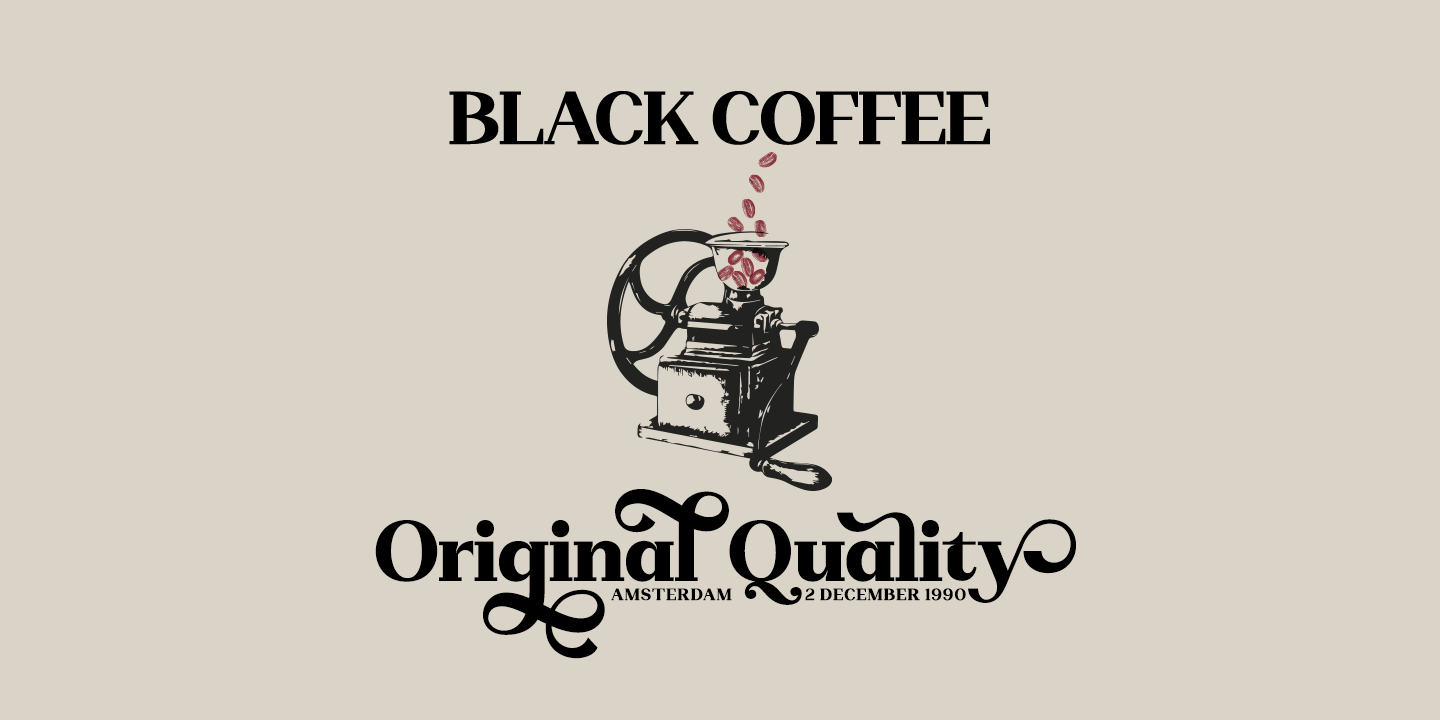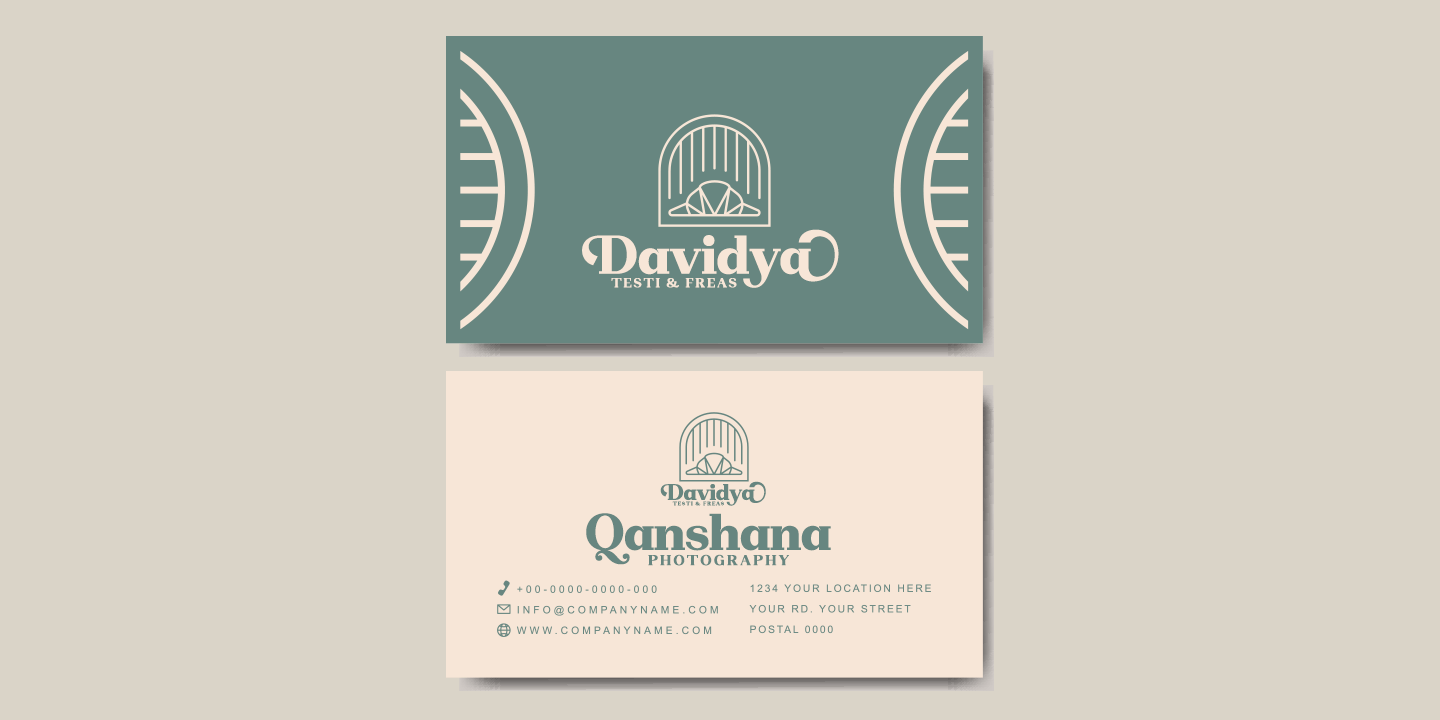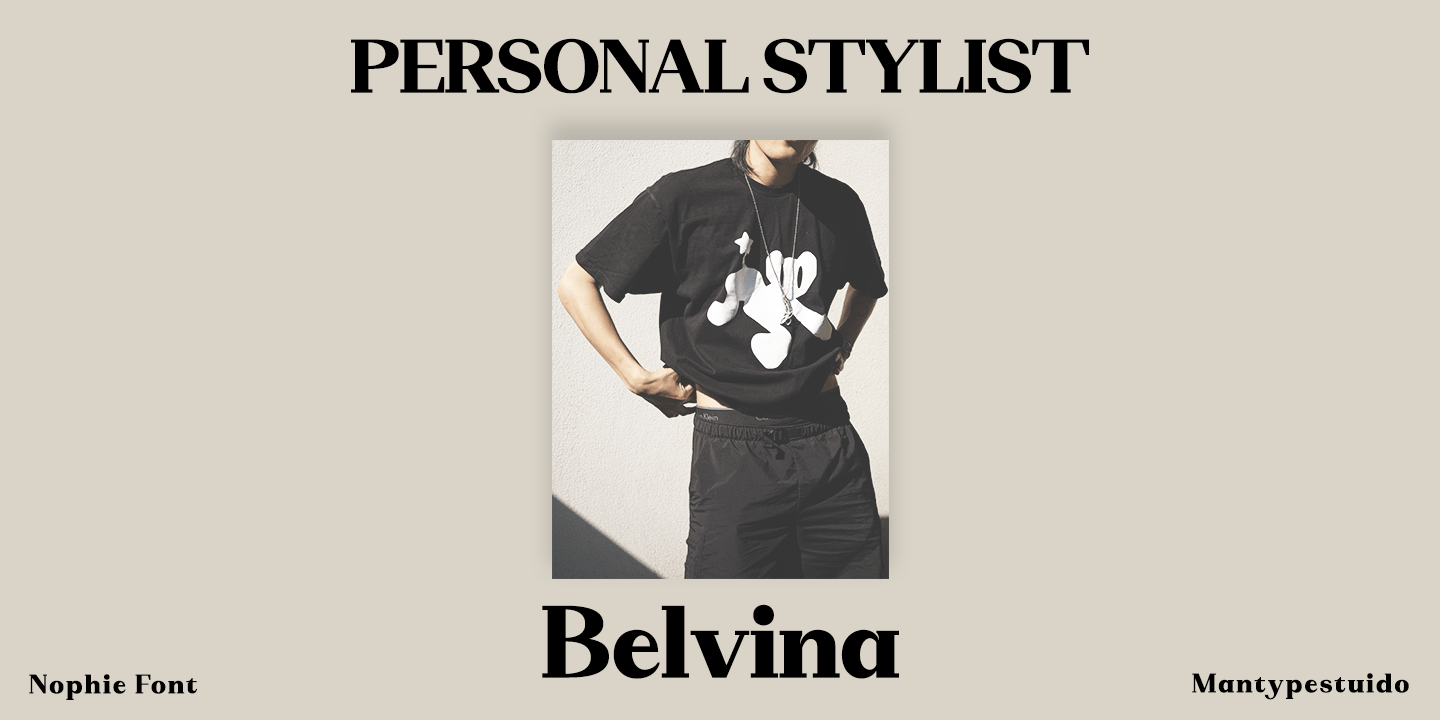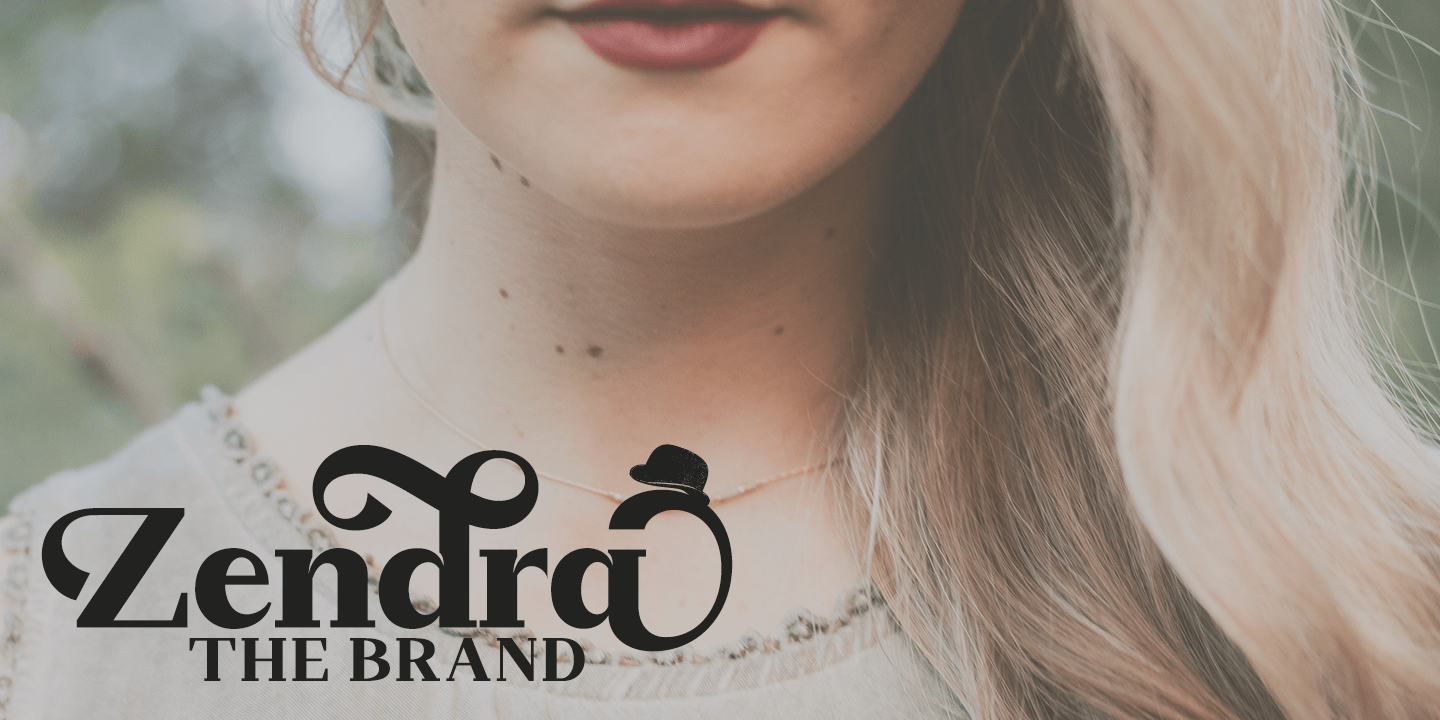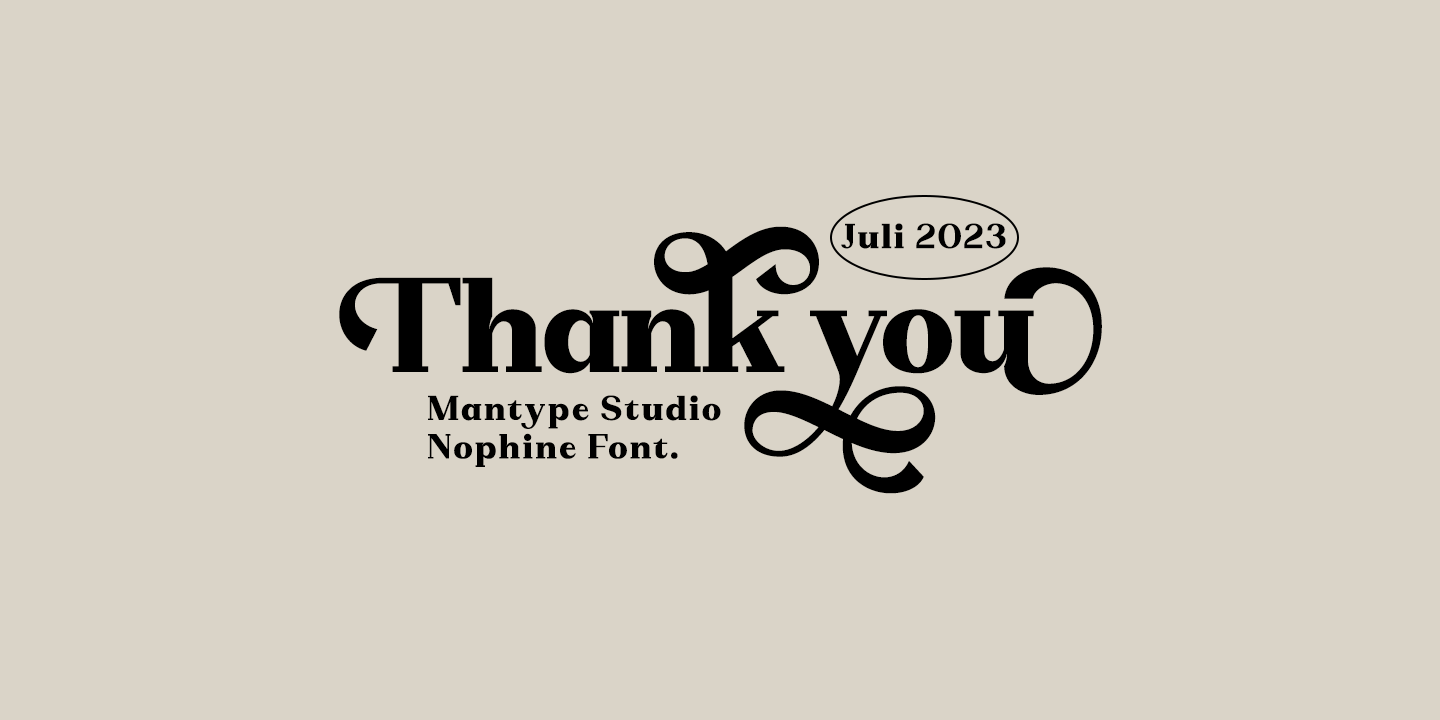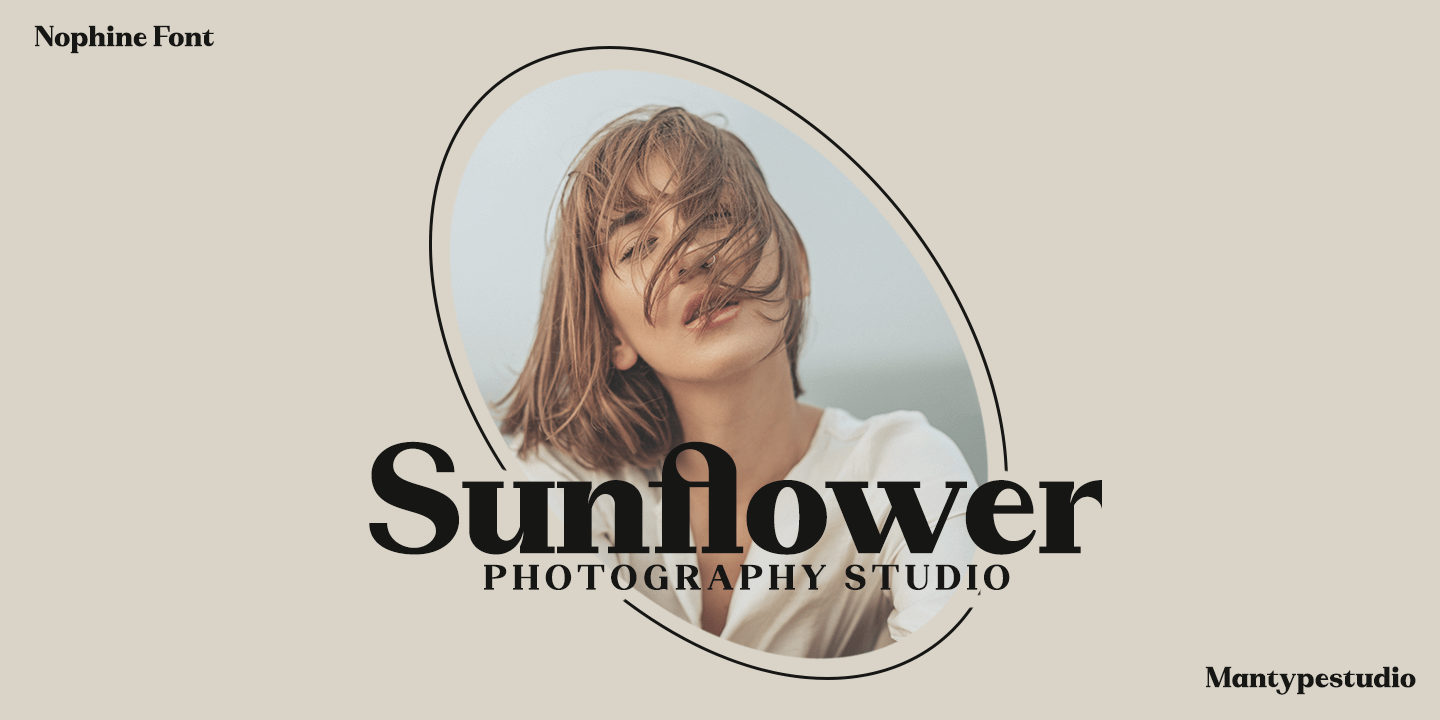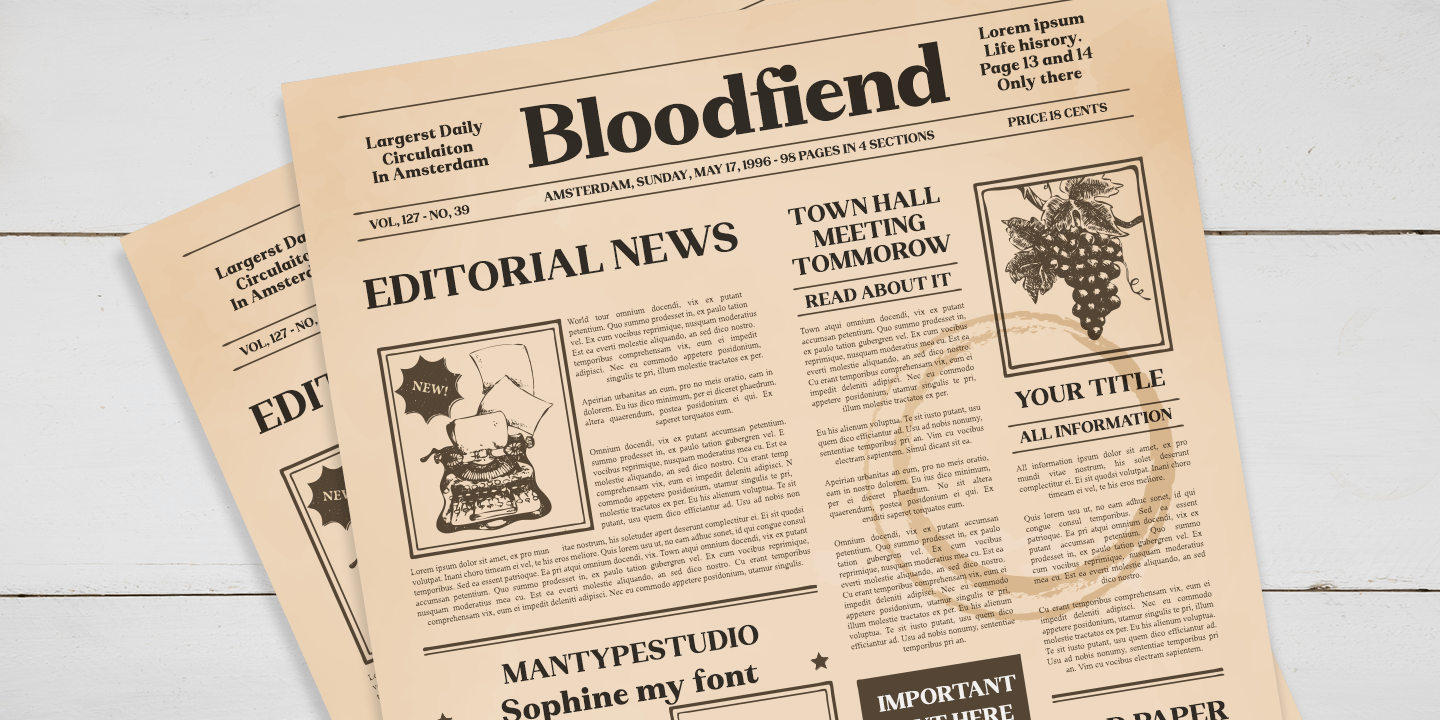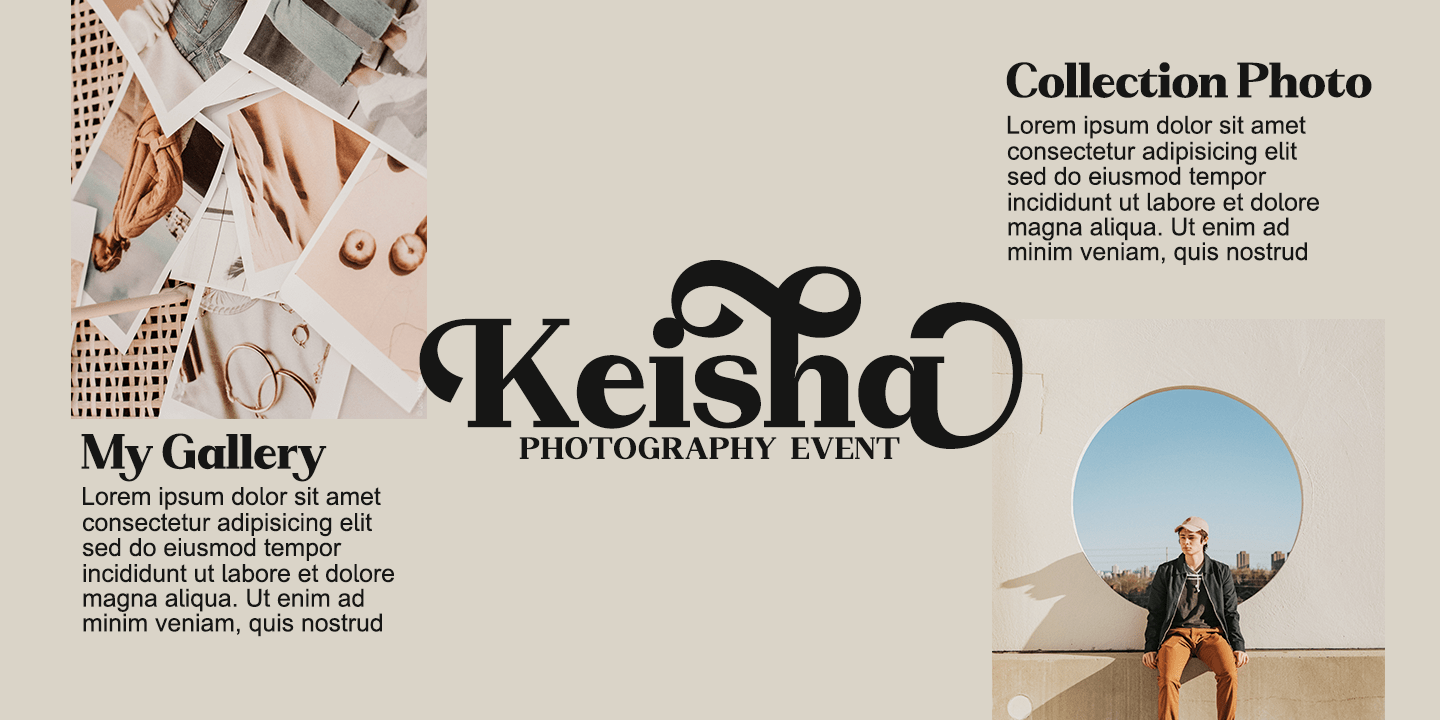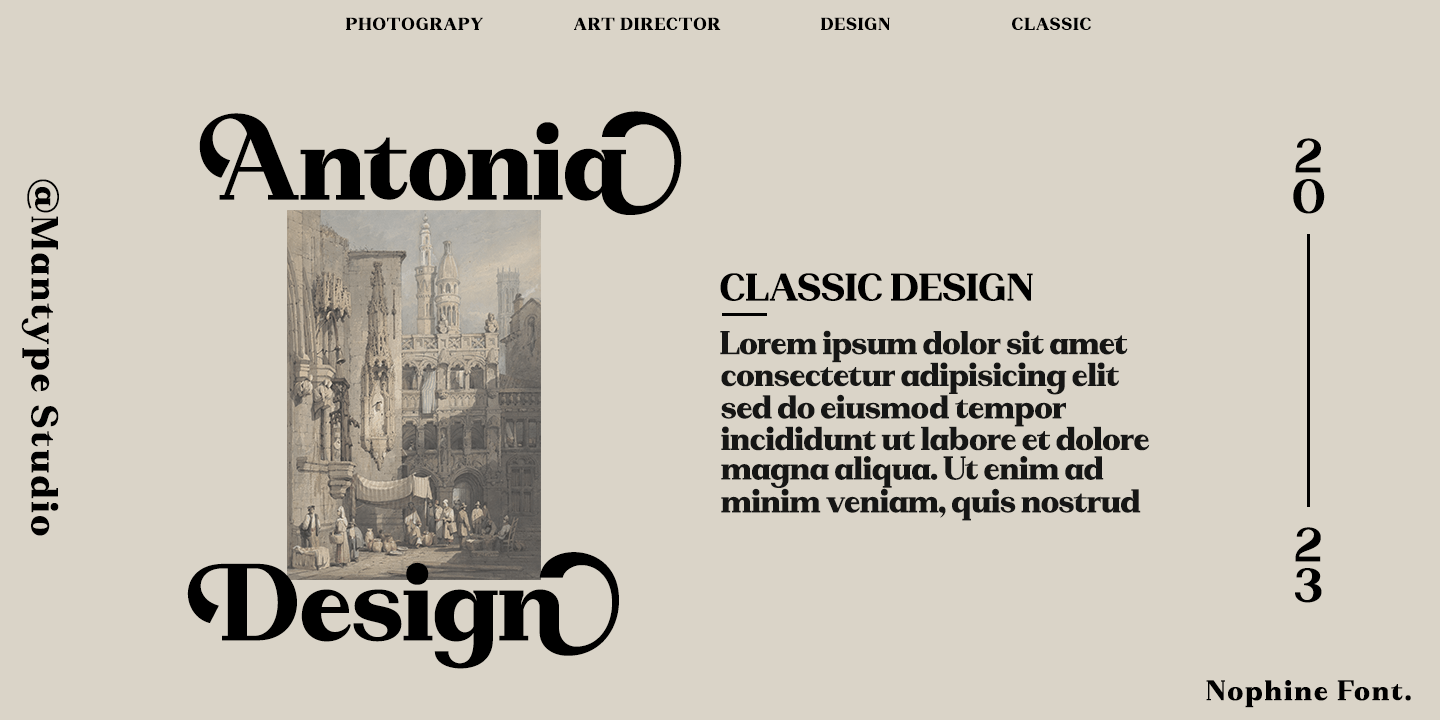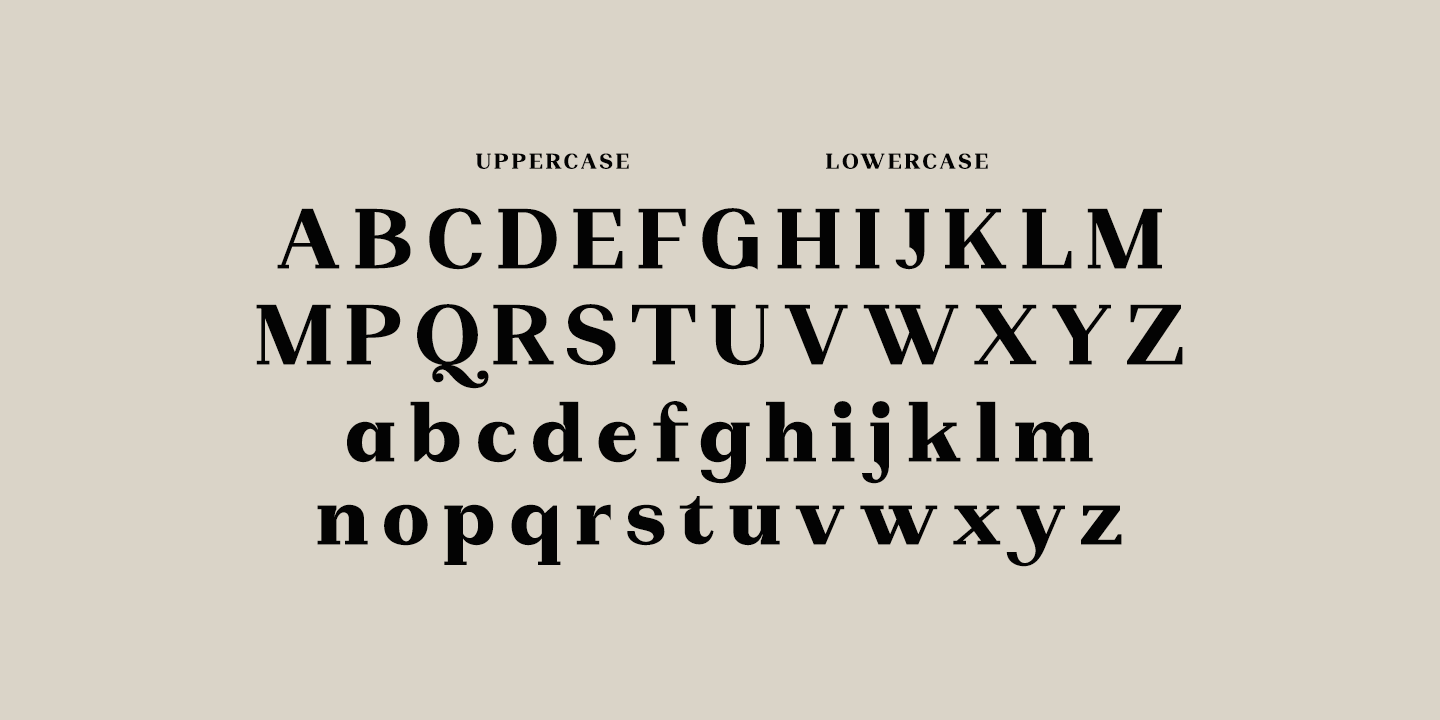
Nophine Regular
Nophine is a typeface designed by Sulai Man specifically for intensive editorial use, particularly in newspapers, magazines, and online. Its personality and flexibility make it a truly versatile typeface.
The medium weight provides a neutral appearance when used in text sizes, offering the solidity commonly expected in newspaper fonts. Its unobtrusive appearance, excellent texture, and slight color allow it to perform perfectly in continuous text, even in the most demanding editorial applications. As its size increases in print, Nophine reveals its personality through a series of measured idiosyncrasies that make it memorable and recognizable. Its energetic characters are clearly visible when used for subheadings and headlines.